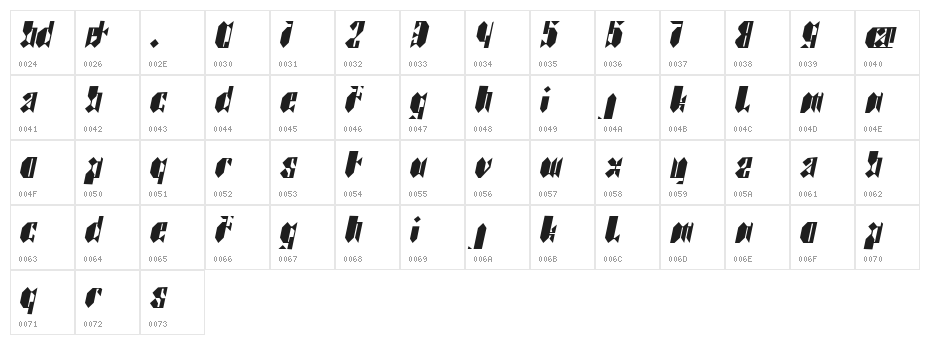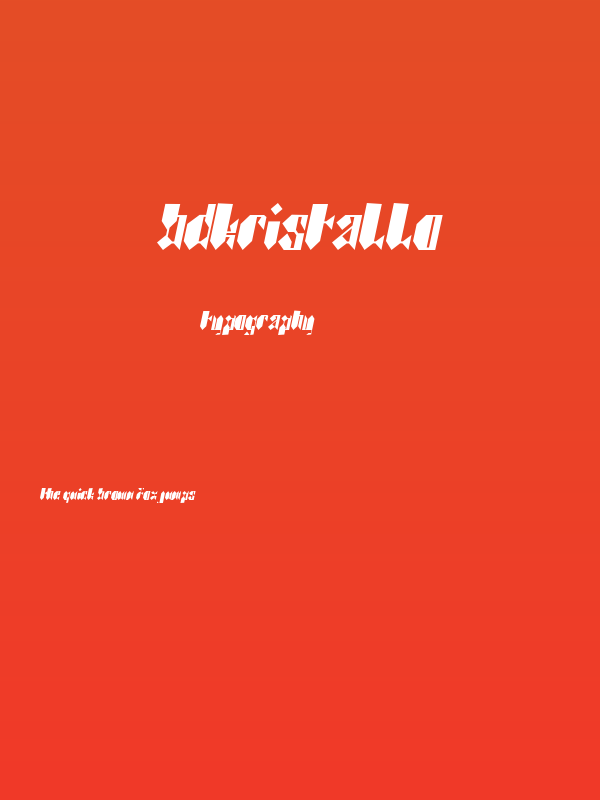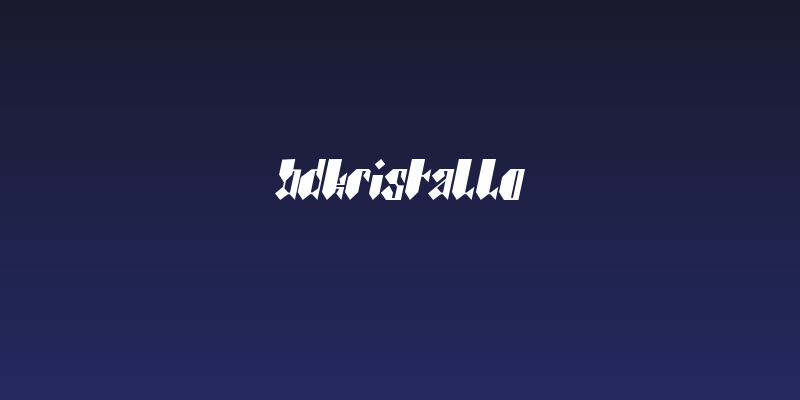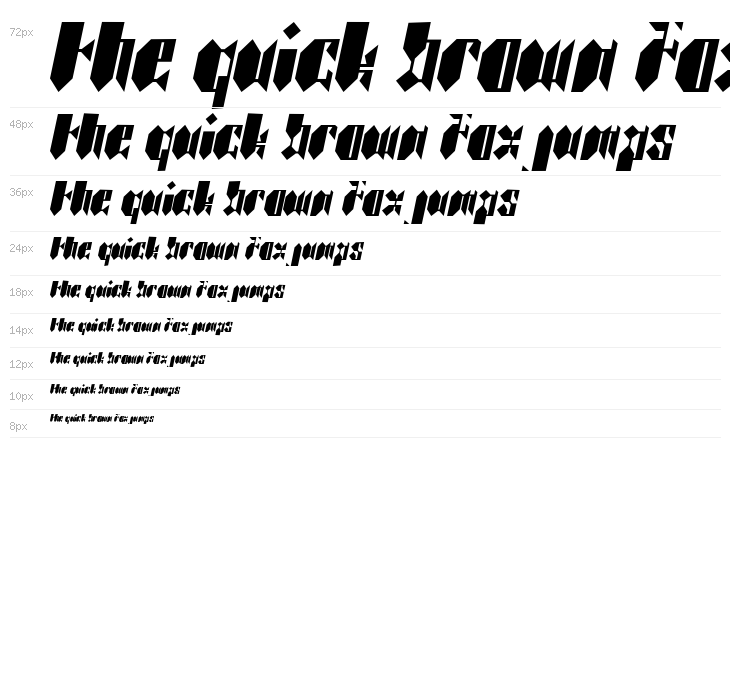
BDkristallo Font
BDkristallo Description
This font features a bold and angular design, characterized by sharp edges and a geometric structure. The letters are heavily stylized, with a strong emphasis on diagonal lines and pointed corners, giving it a dynamic and aggressive appearance. The uppercase and lowercase letters maintain a consistent style, with the lowercase mirroring the uppercase in form. Numbers and special characters follow the same angular theme, ensuring uniformity across the character set. The font's unique style makes it stand out, suitable for projects that require a bold and striking visual impact.
| Proposed Projects | Ideal for branding, posters, and titles that require a strong visual impact. |